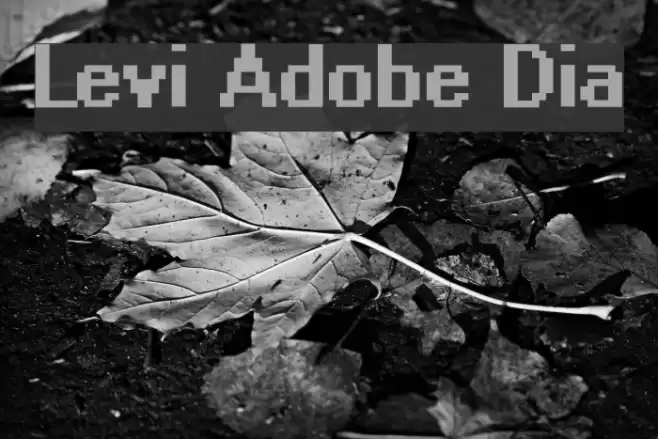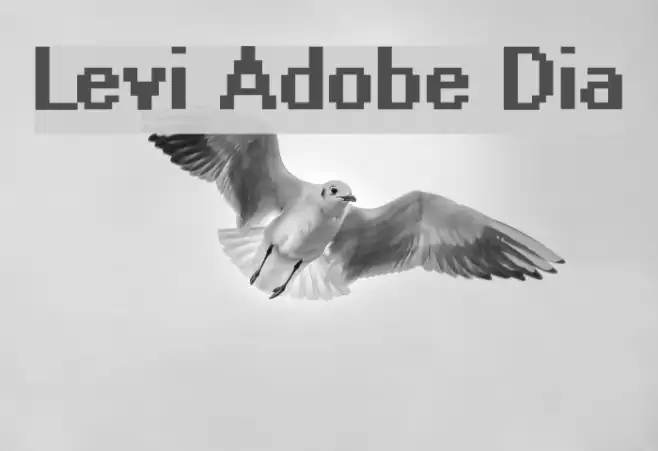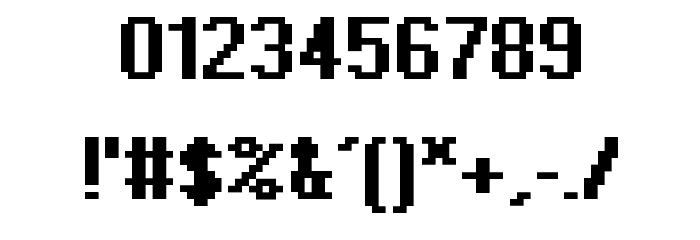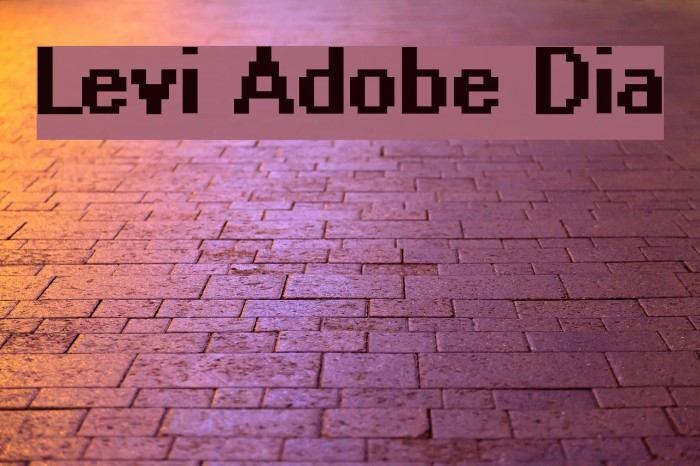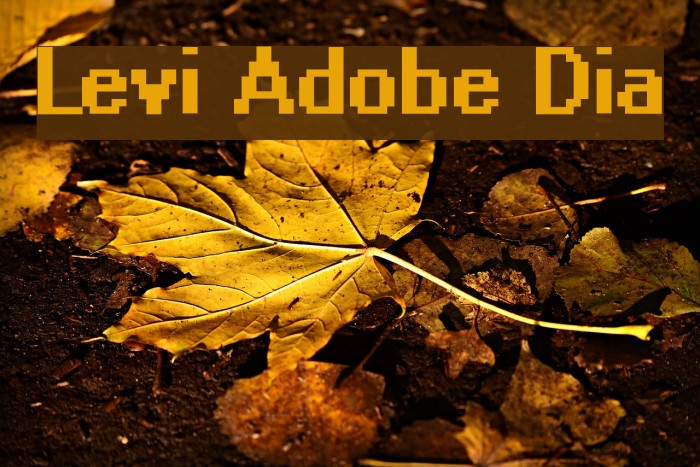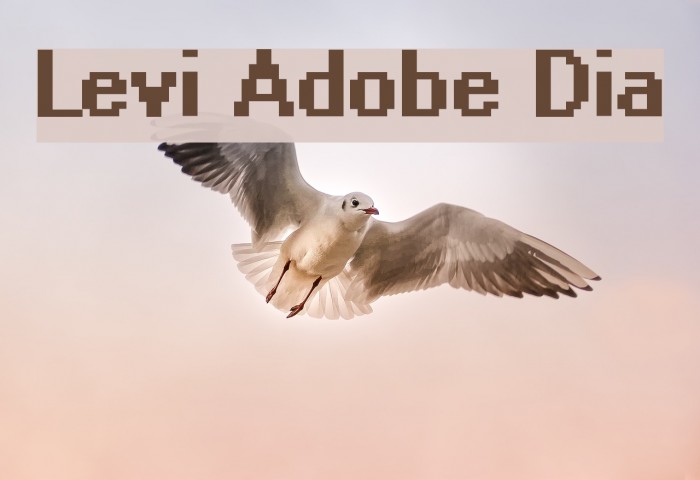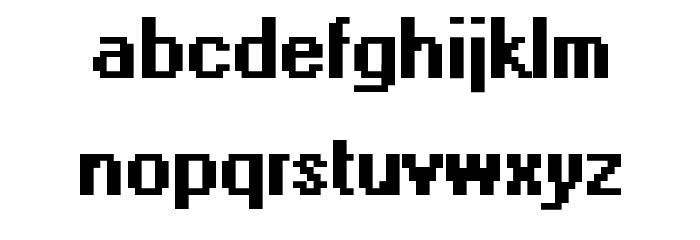
Levi Adobe Dia Font
Levi Adobe Dia Description
This font features a bold, geometric design with a pixelated aesthetic reminiscent of early digital typefaces. The characters are constructed with a blocky, grid-like structure, giving it a distinct retro and tech-inspired feel. The uppercase and lowercase letters maintain a consistent width, contributing to a uniform appearance. The numerals and special characters follow the same stylistic approach, ensuring cohesion across all glyphs. This font's unique style makes it stand out, particularly in digital and retro-themed projects.
A bold, pixelated font with a retro digital aesthetic from Uncategorized fonts.
- Proposed Projects: Ideal for video game design, tech-themed posters, digital art projects, and retro-style branding.
- Overall Style: Retro, Digital